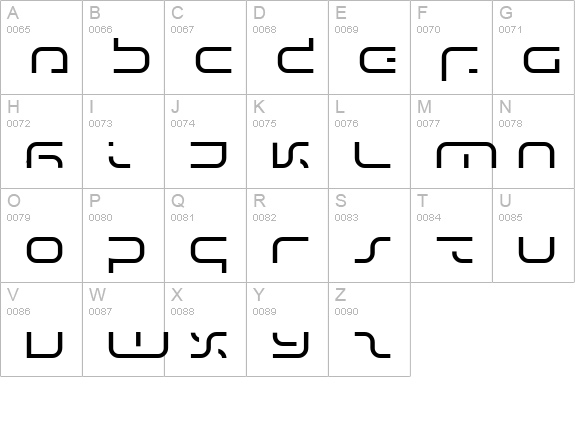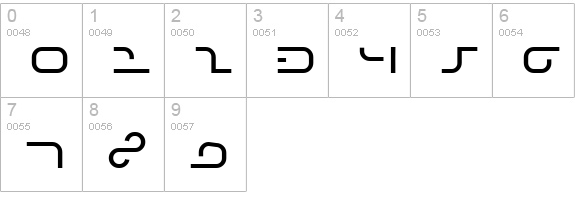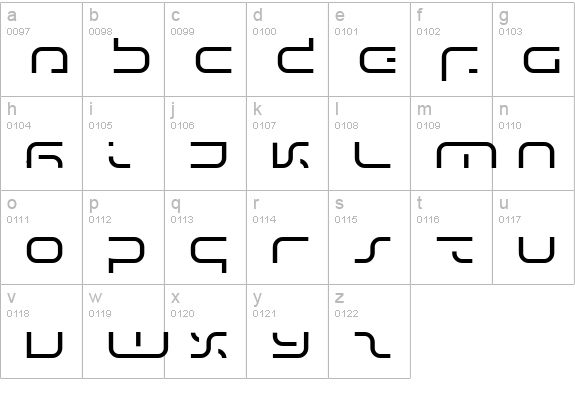
IJ19 90 Font Details
Introducing the stunning and versatile IJ19 90 font! This remarkable typeface is a true testament to the power of design, combining elegance and modernity in one cohesive package. With its sleek and sophisticated appearance, IJ19 90 is guaranteed to elevate any project to new heights of visual appeal. Featuring a bold and confident letterform, IJ19 90 exudes a sense of strength and professionalism. Its clean lines and perfectly balanced proportions make it an excellent choice for a wide range of applications, from branding and advertising to editorial design and beyond. Whether used for headlines, titles, or body text, this font will effortlessly captivate your audience and leave a lasting impression. One of the standout features of IJ19 90 is its remarkable versatility. With a comprehensive character set that includes uppercase and lowercase letters, numerals, punctuation marks, and special symbols, this font is ready to meet all your creative needs. It seamlessly adapts to any project, effortlessly complementing both minimalist and bold design styles. But what truly sets IJ19 90 apart is its incredible value proposition - it's free! Yes, you read that right. This exquisite font is freely available to download at FontsMarket.com, allowing you to enhance your design endeavors without breaking the bank. Embrace the opportunity to access professional-grade typography without any cost, and watch your designs flourish with the added touch of IJ19 90. So, don't miss out on this remarkable font that will undoubtedly become an invaluable asset to your design toolkit. Download IJ19 90 today from FontsMarket.com and unlock a world of creative possibilities. Elevate your projects with this captivating typeface, and let your imagination soar.